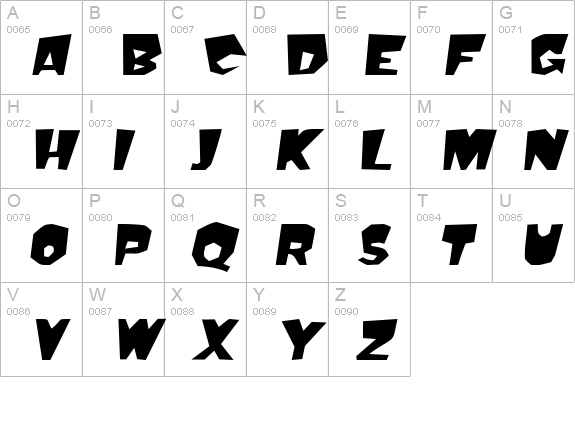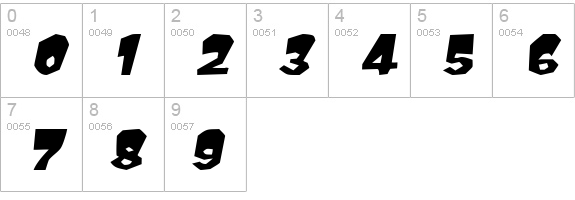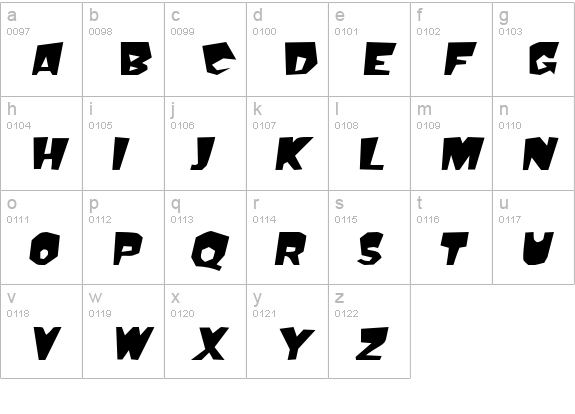
Mondo BoldOblique is a striking and dynamic font that exudes confidence and modernity. Its bold and slanted design makes it perfect for creating eye-catching headlines, logos, and other design elements that demand attention. The sleek curves and sharp angles of this typeface give it a unique and contemporary feel that will make your projects stand out. What sets Mondo BoldOblique apart is not only its visual appeal but also its versatility. Whether you're designing a poster, website, or branding materials, this font will add a touch of sophistication and style to your work. Its bold strokes and oblique angle create a sense of movement and energy, making it ideal for projects that aim to make a bold statement. The best part? Mondo BoldOblique is available for free download at FontsMarket.com. This means you can easily access this high-quality font and integrate it into your projects without any hassle. So why wait? Give your designs the bold and modern touch they deserve with Mondo BoldOblique.